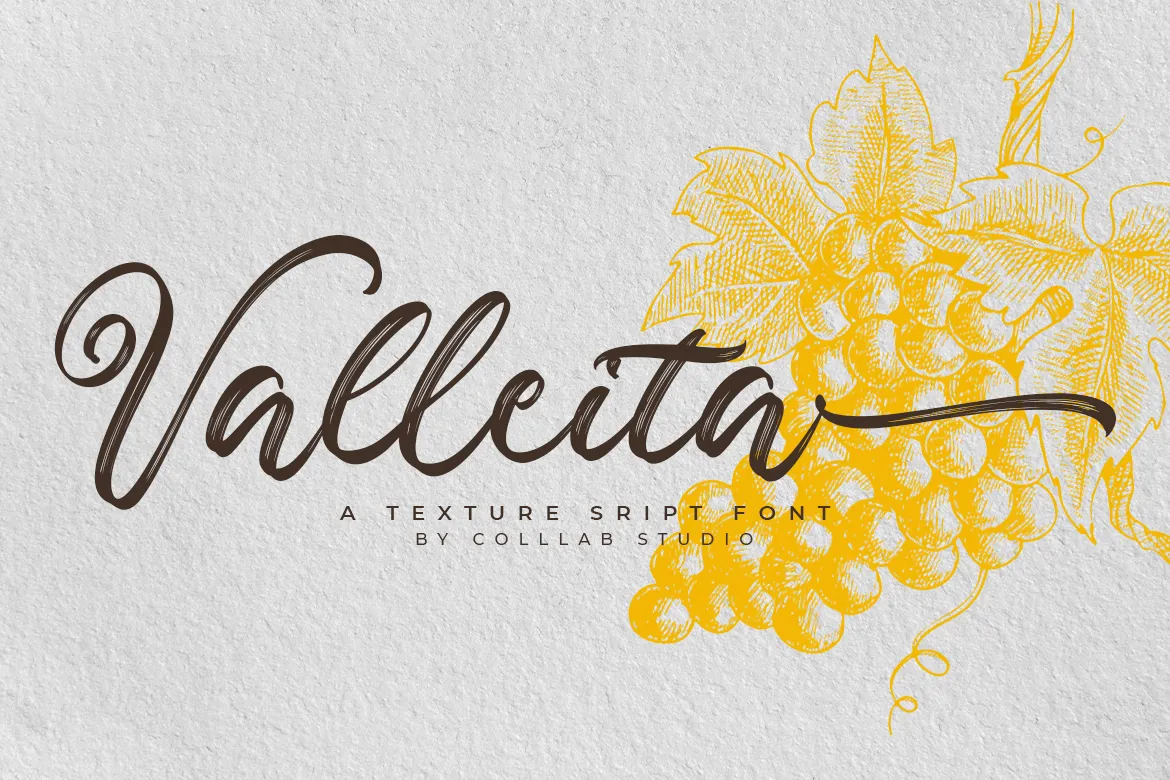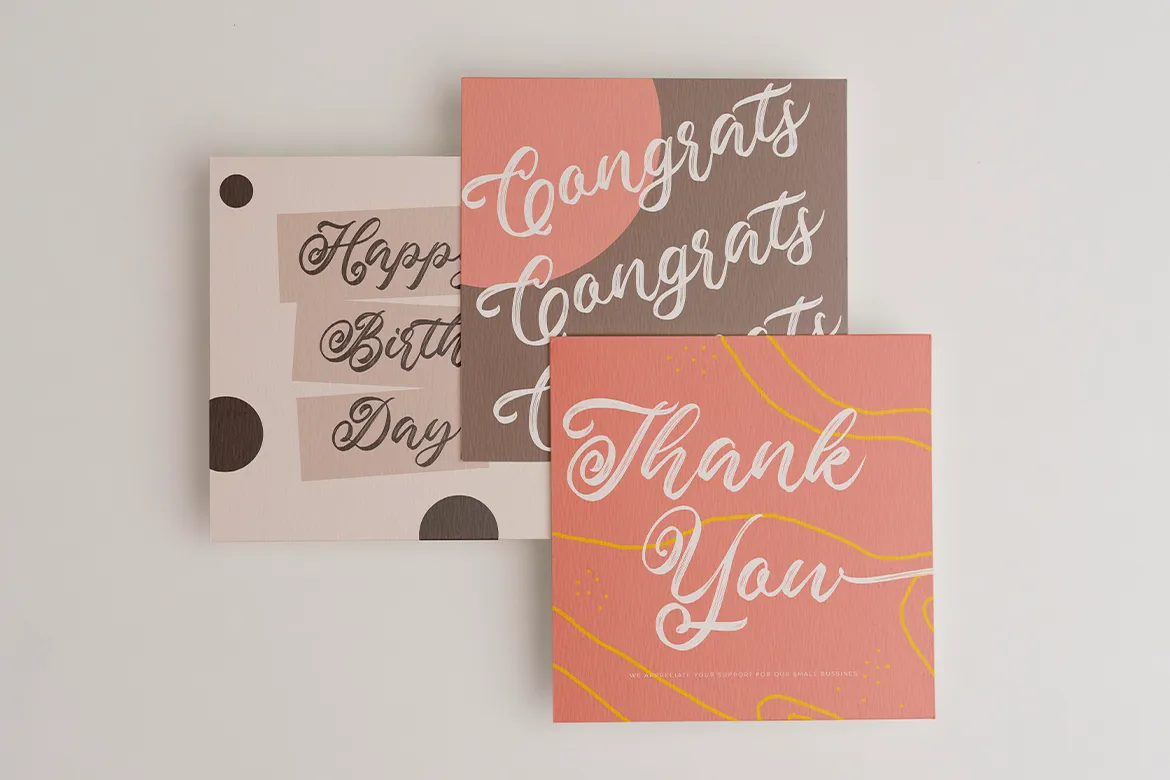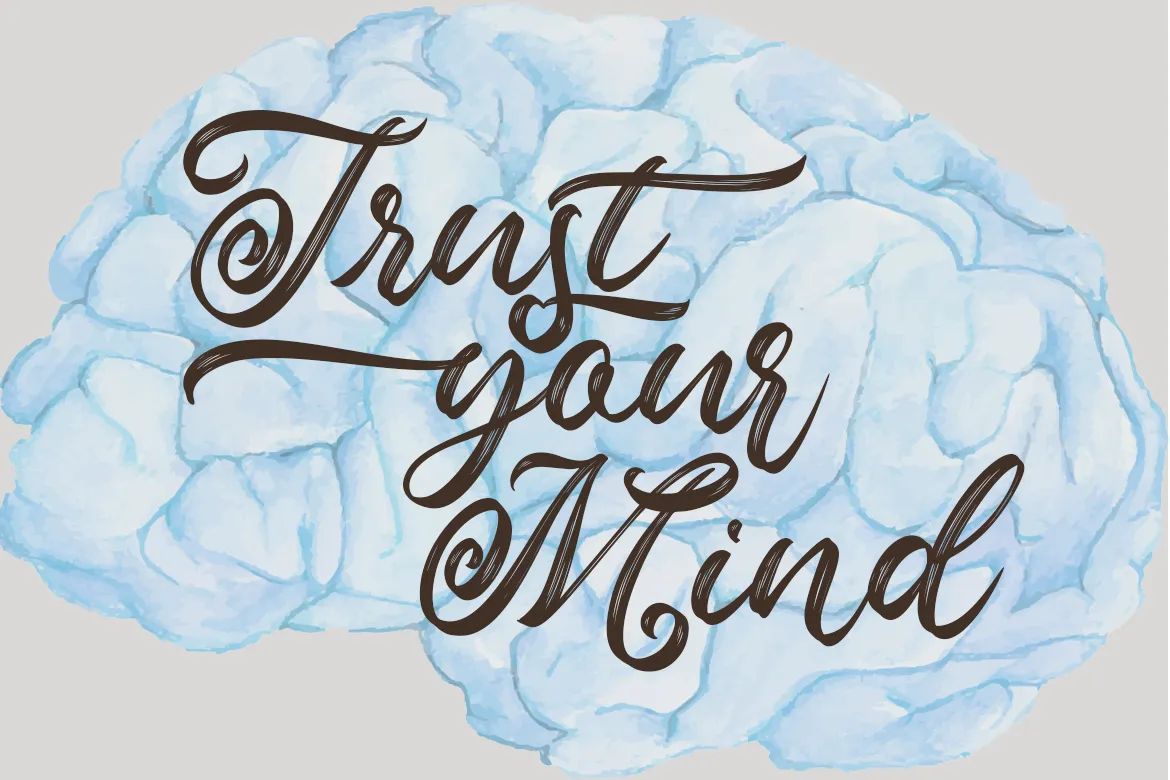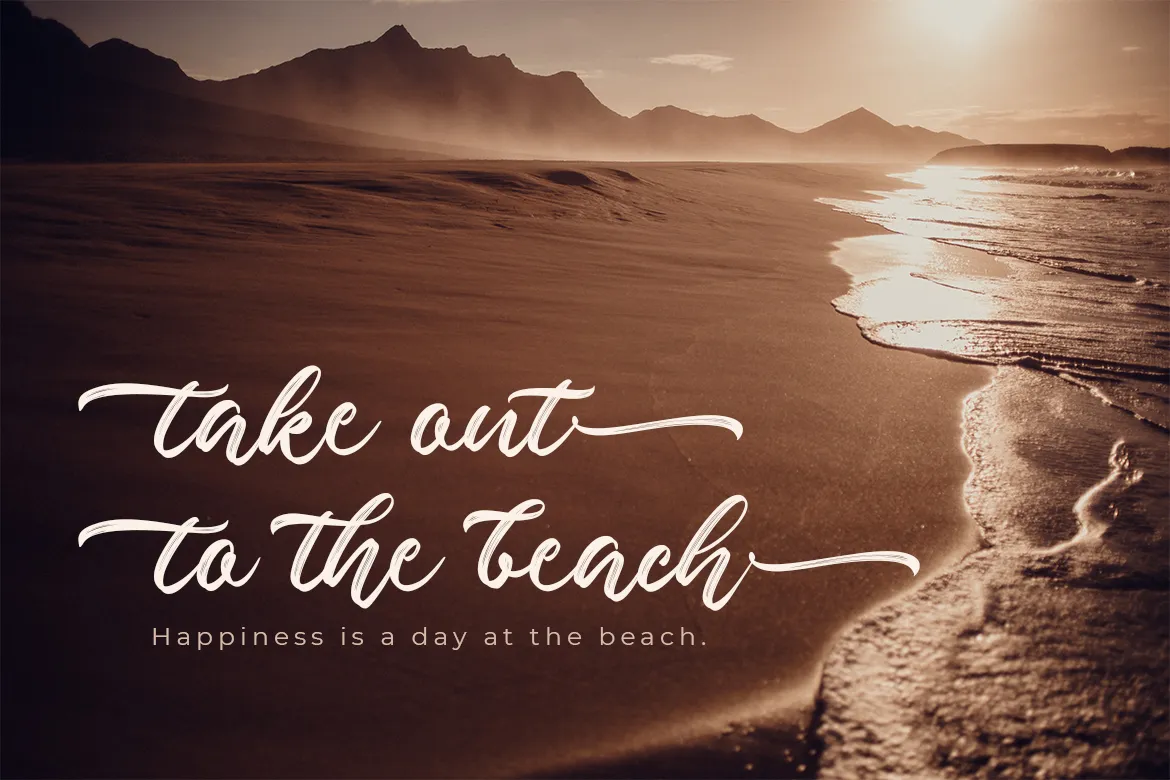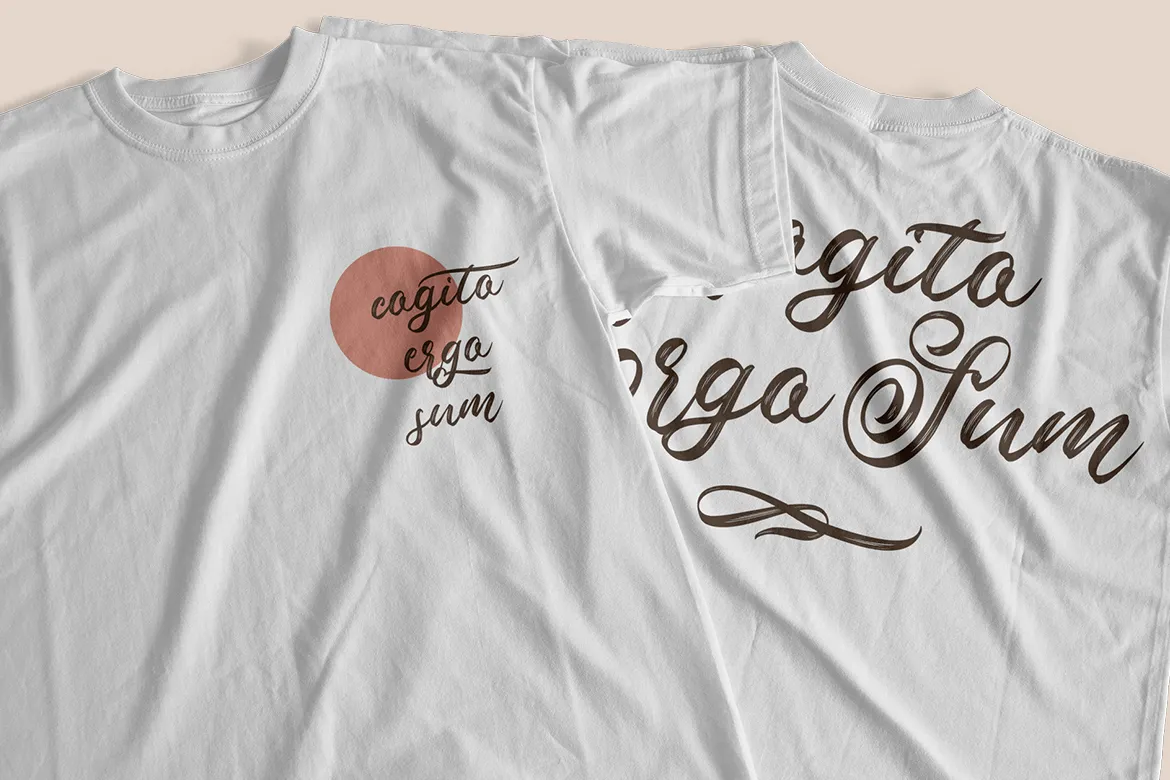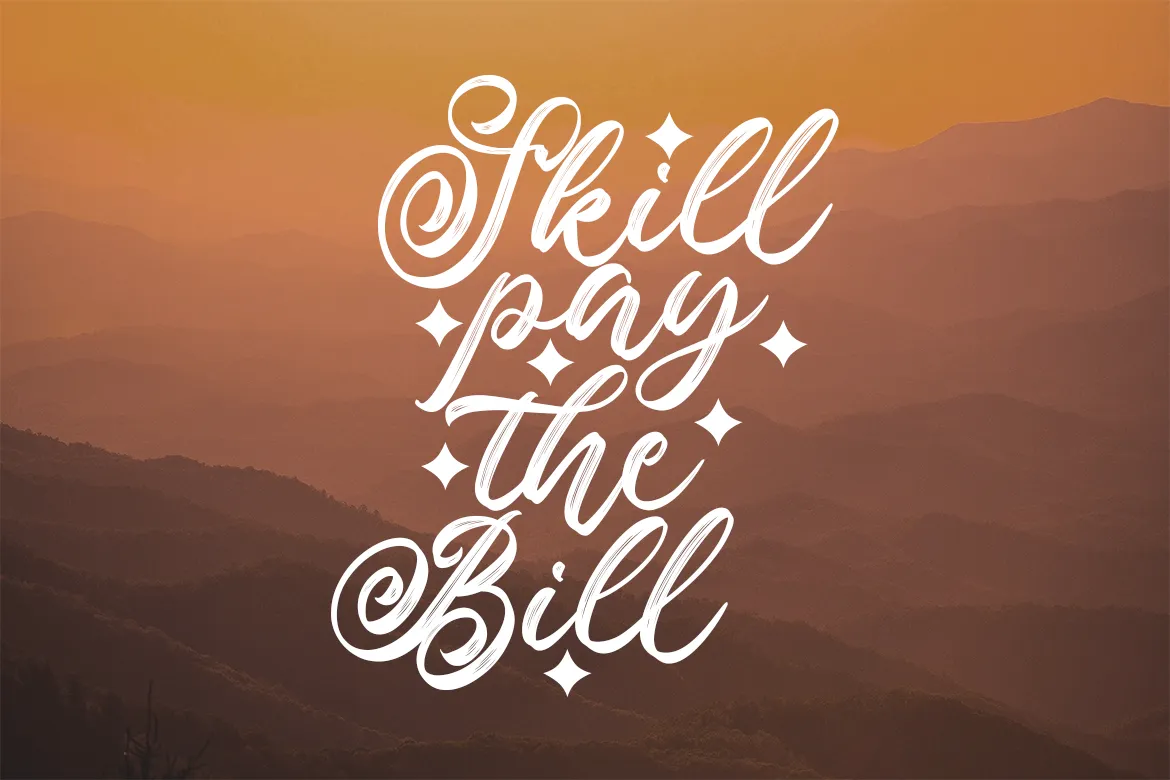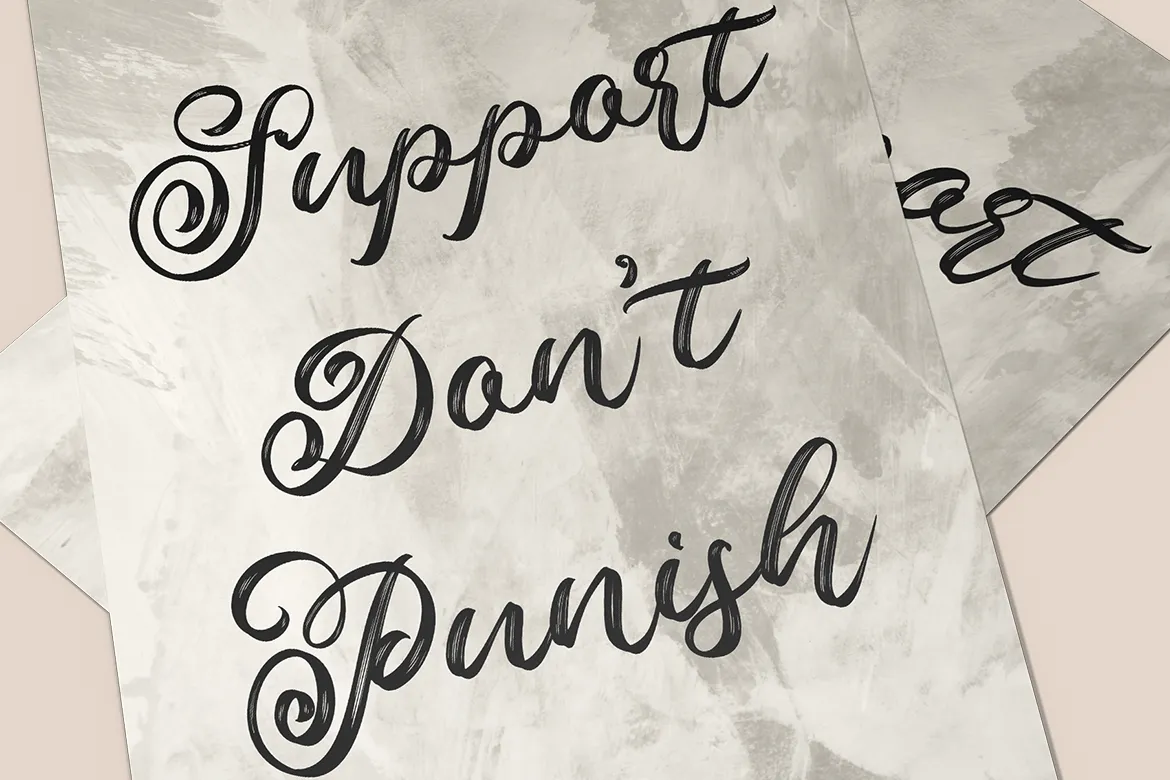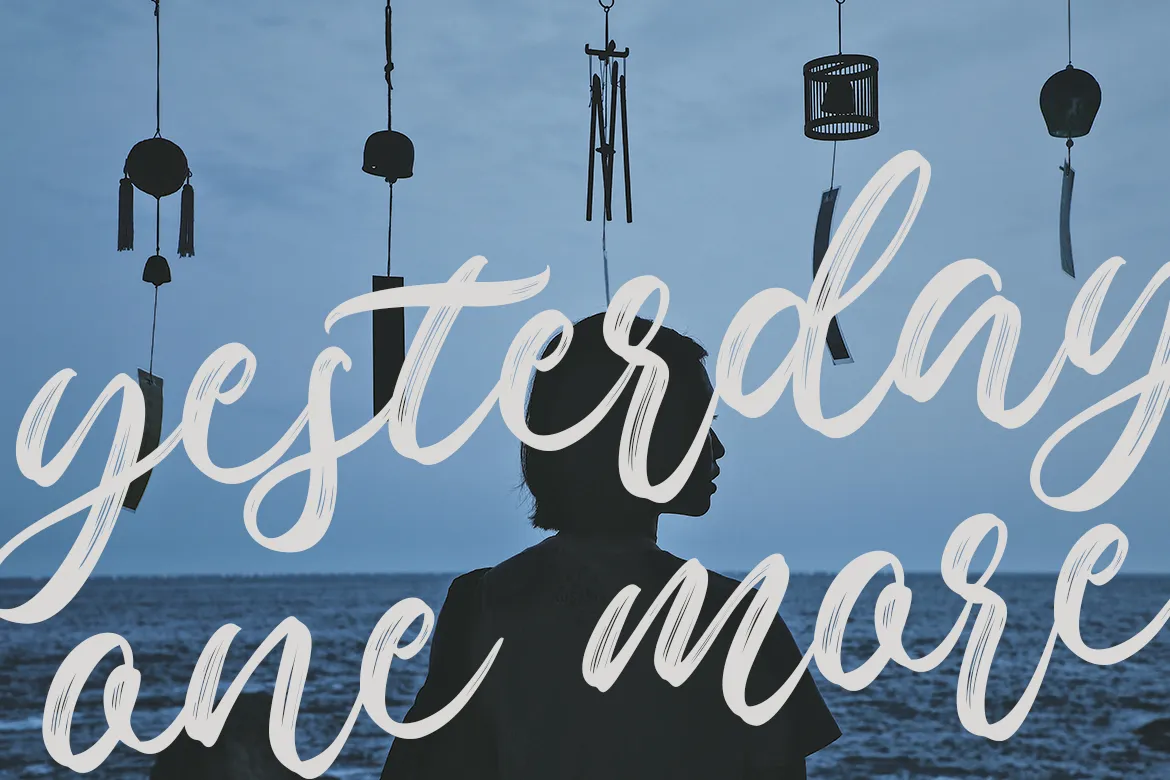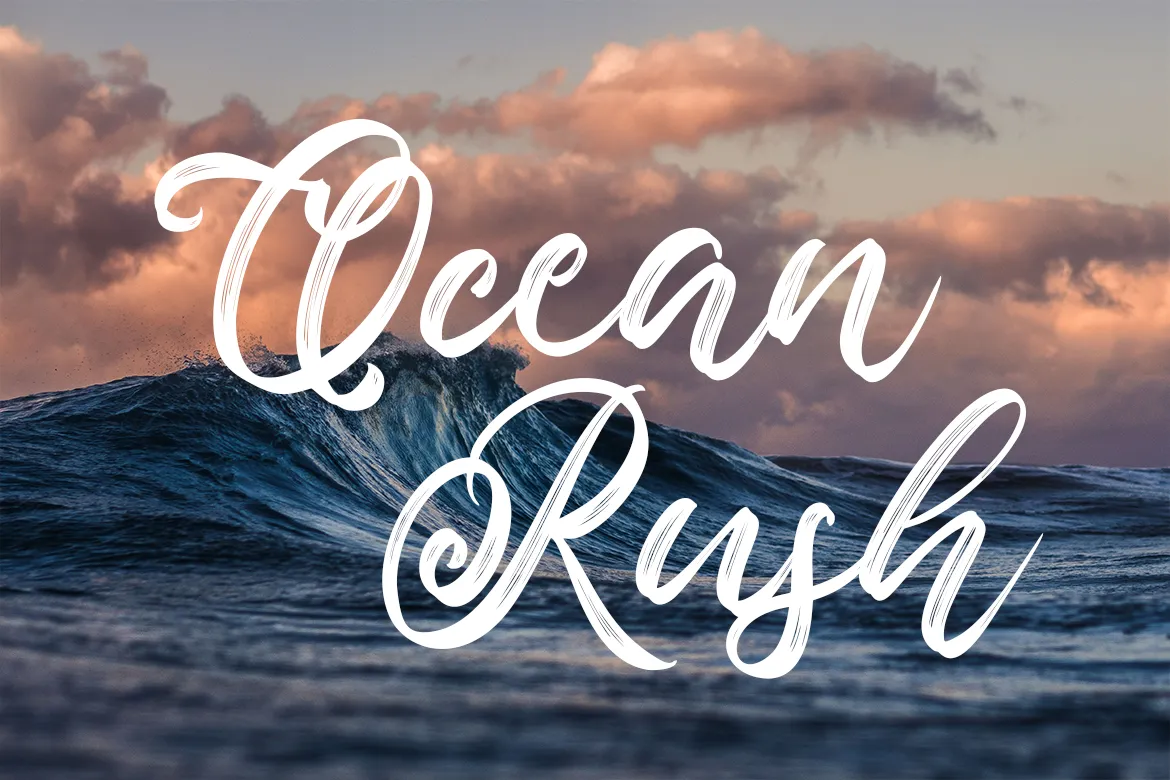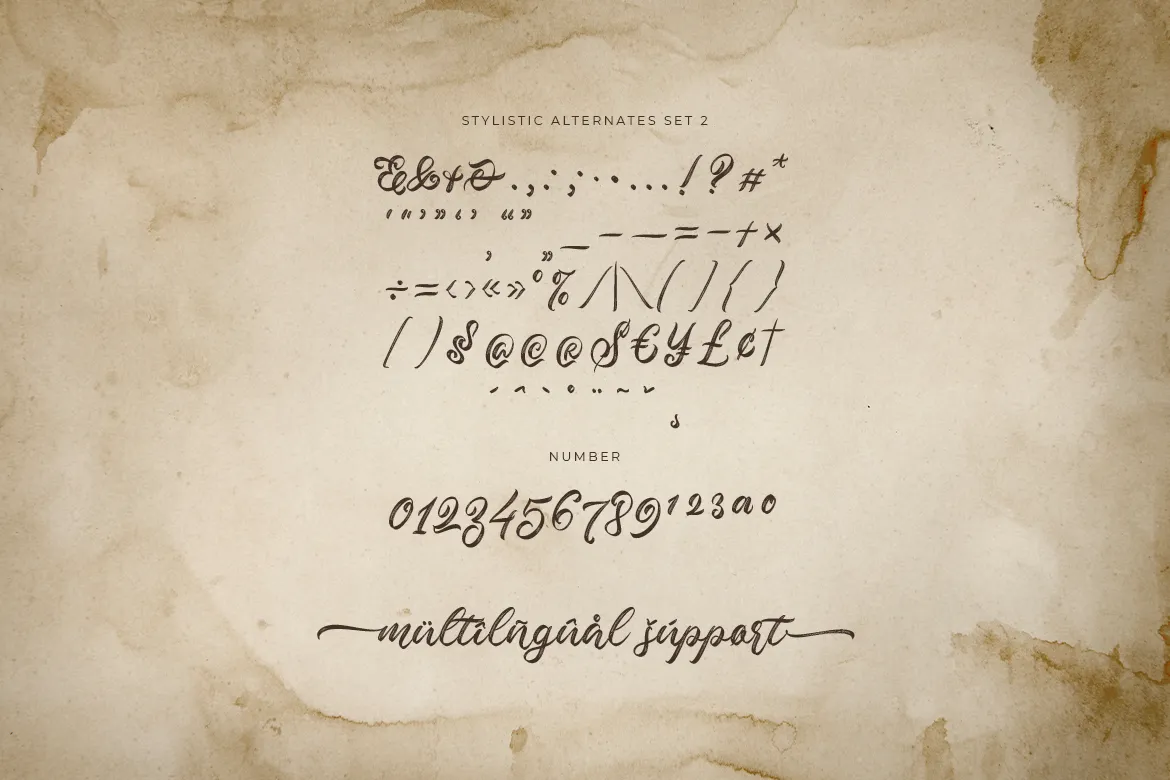
INTRODUCING, Valleita Script, Inspired by antique lettering, our design pays careful attention to curves, serifs and ligatures. Each letter was constructed using thousands of human-timestamped strokes to achieve the perfection of an old pen from the 1500s. Admirers of charming brush scripts will appreciate the elegant, feminine beauty of valleita script. Create luxurious artwork with a fanciful touch.
Valleita Script is a highly stylish textured script font with premium quality. It has a great design and suitable for various types of projects including posters, logos, album covers, flyers, etc, with a wide range of swashes and alternates. We have done some nice logo designs using Valleita Script.